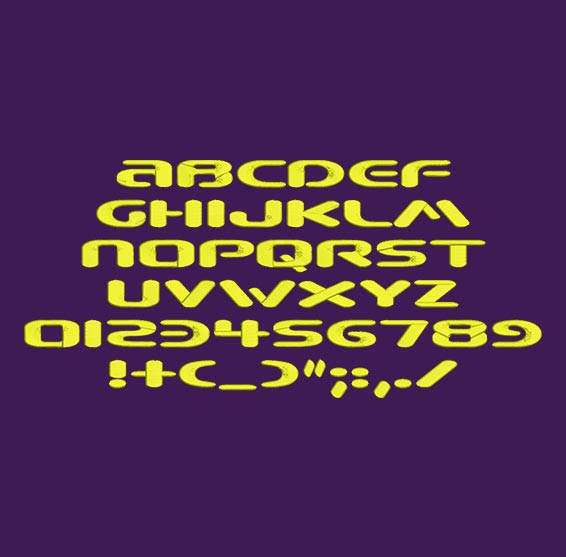
Title: Beware Machine Embroidery Font
This Beware font is perfect for personalizing clothes, bags, towels and linens!
Perfect for your little wizards, Harry Potter would be proud!